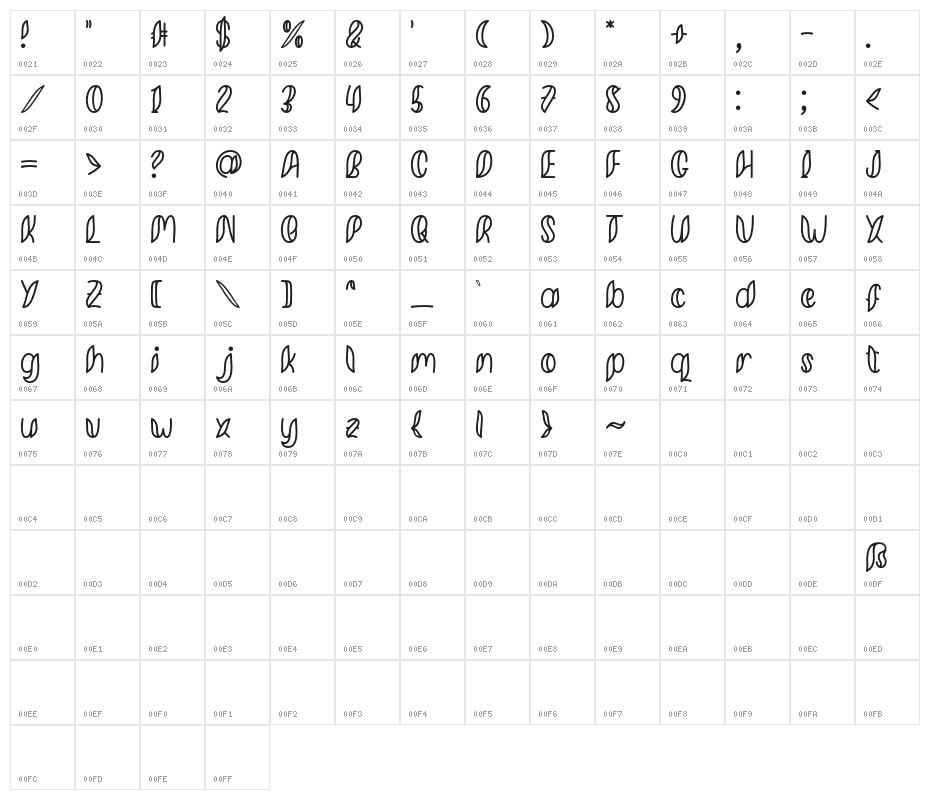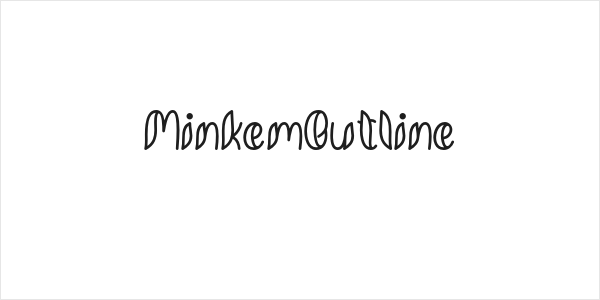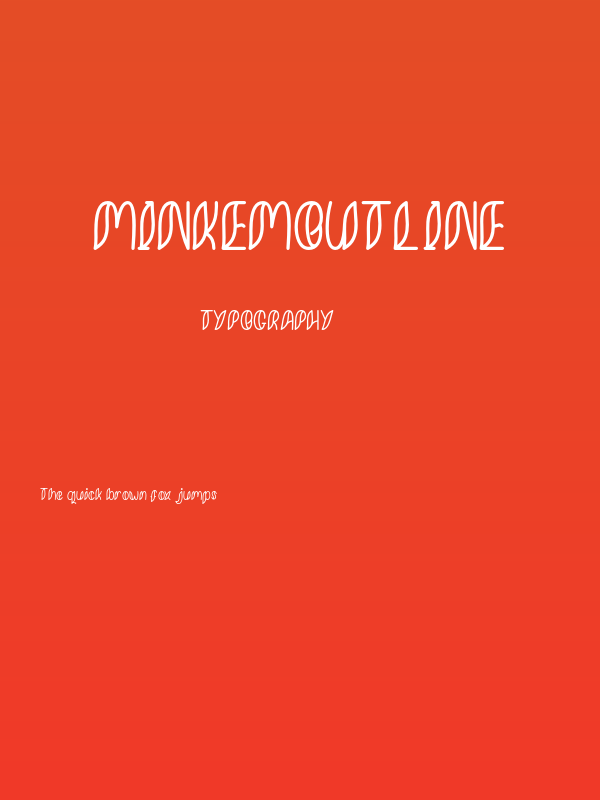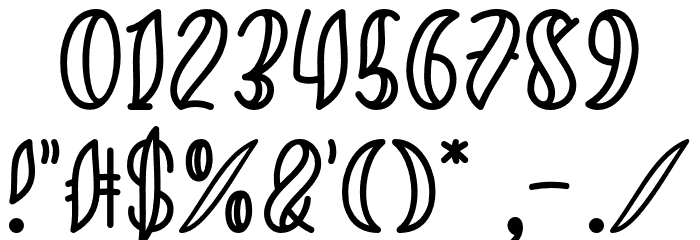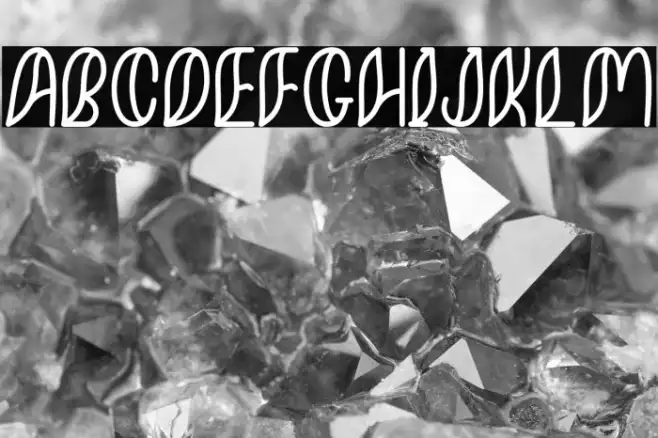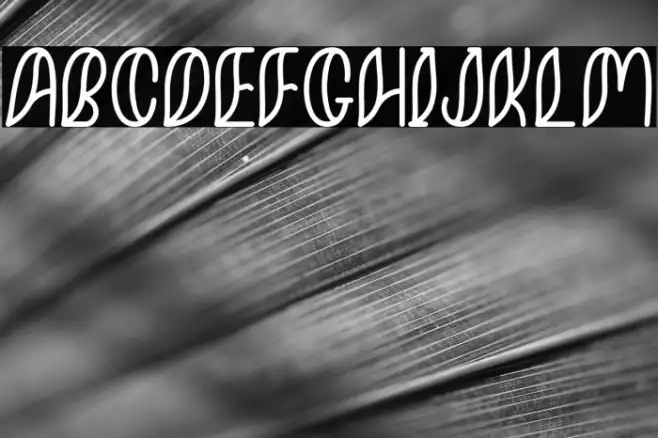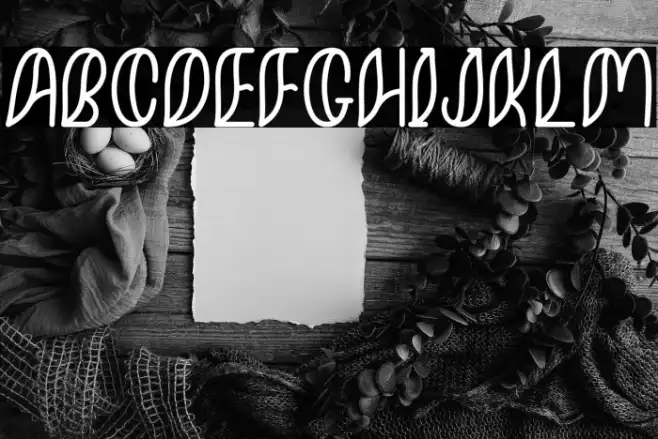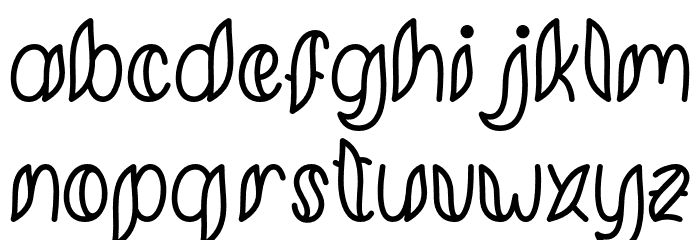
MinkemOutline Font
MinkemOutline Description
This font features a playful and whimsical design with an outline style that gives it a unique and artistic appearance. The characters are crafted with a smooth, flowing script that maintains a consistent thickness throughout, creating a harmonious and balanced look. The uppercase and lowercase letters are designed with a slight slant, adding to the casual and informal feel of the font. The numerals and special characters follow the same stylistic approach, ensuring uniformity across all glyphs. This font's distinctive outline style makes it stand out, while its clear and legible design ensures readability.